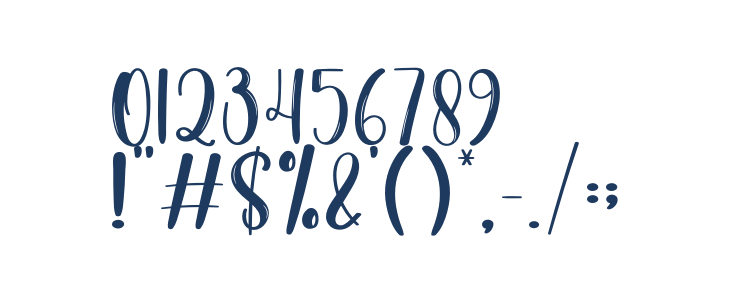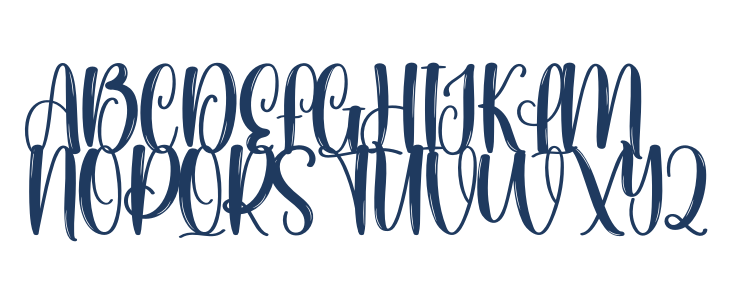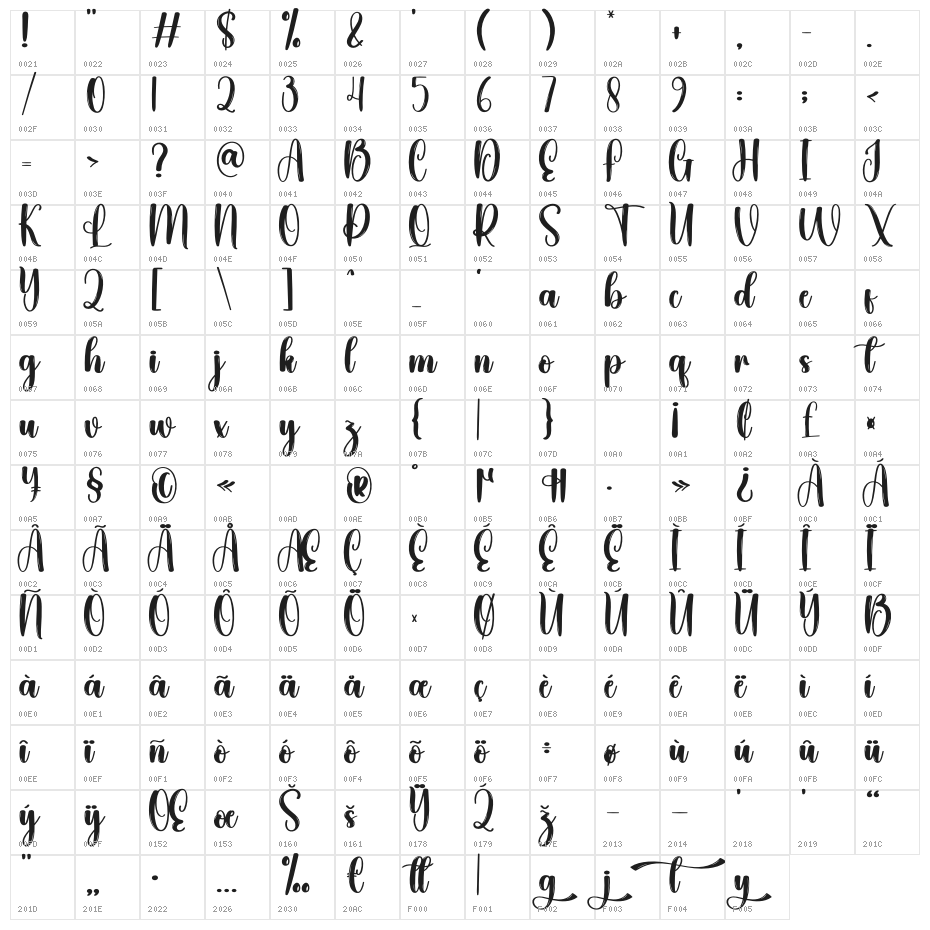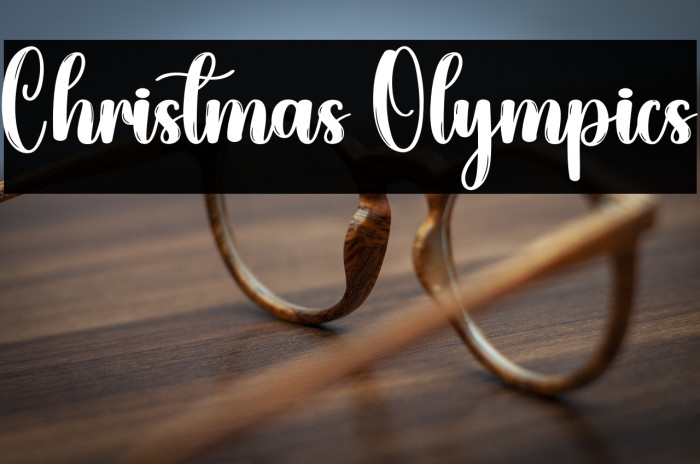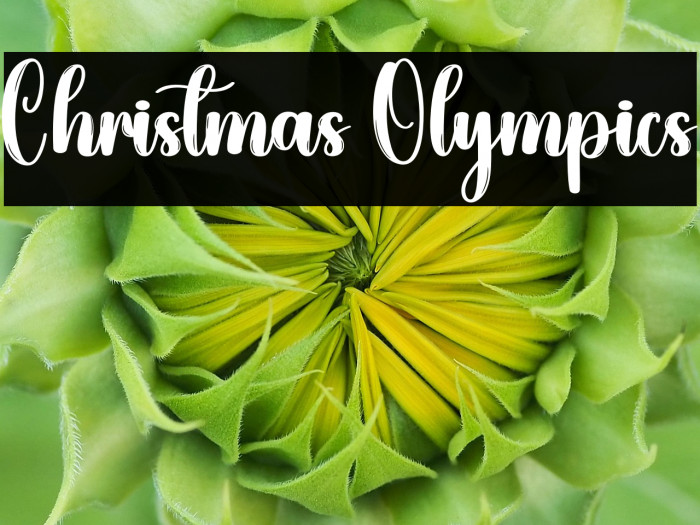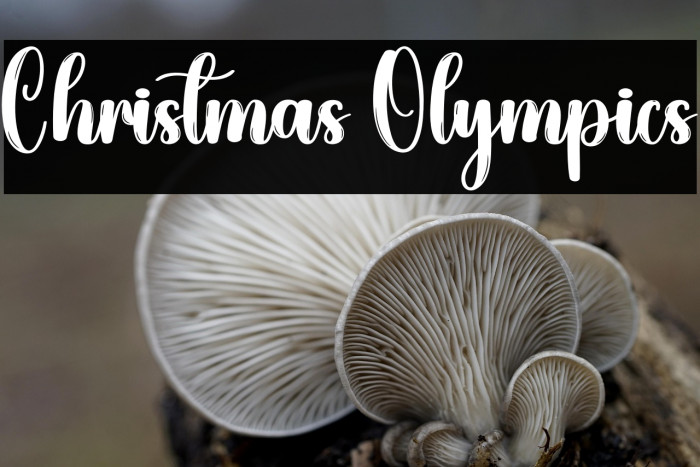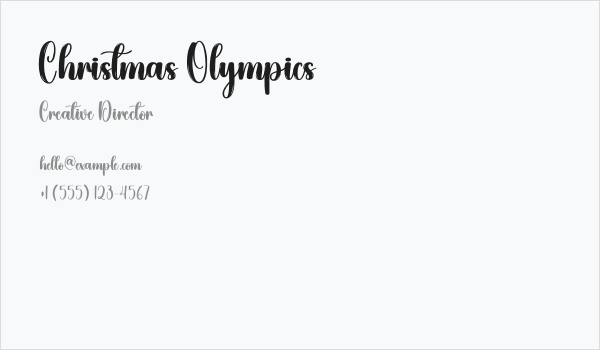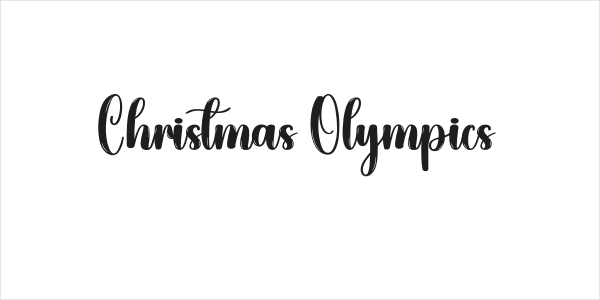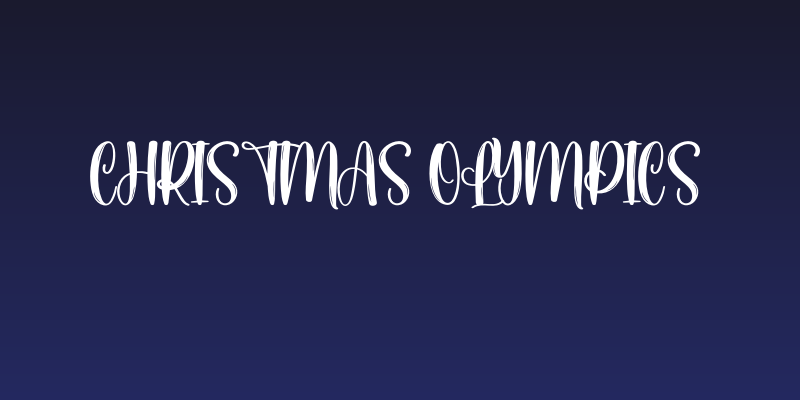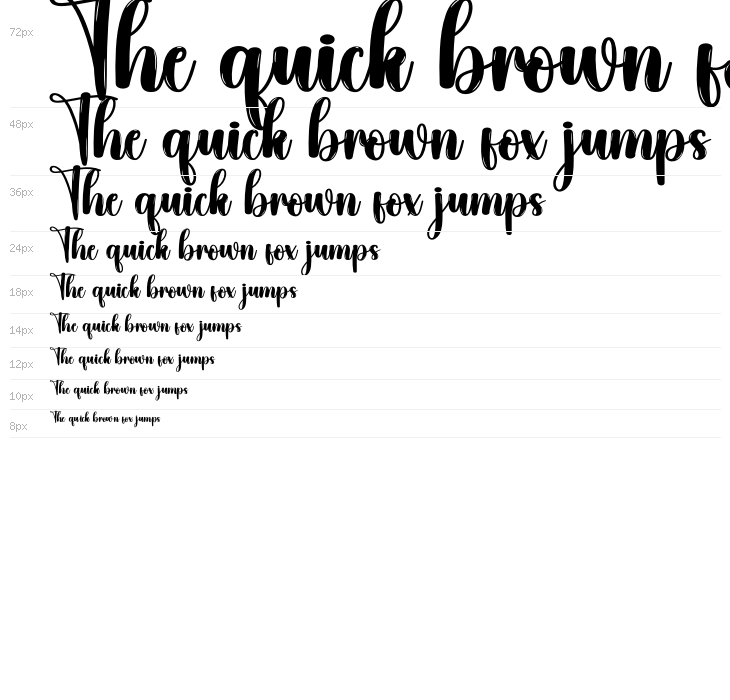
Christmas Olympics Font
Christmas Olympics Description
A playful, modern script font with bold, flowing strokes and a handwritten, brush-pen appearance. The uppercase letters are tall and elegant with dramatic loops, while the lowercase letters are rounded and connected, creating a lively and festive feel. Numbers and punctuation maintain the same energetic style.
| Overall Style | Decorative, Modern, Festive |
| Use Case | Headlines, Logos, Invitations, Greeting cards |
| Proposed Projects | Holiday cards, event invitations, branding for festive occasions, social media graphics, decorative headlines. |